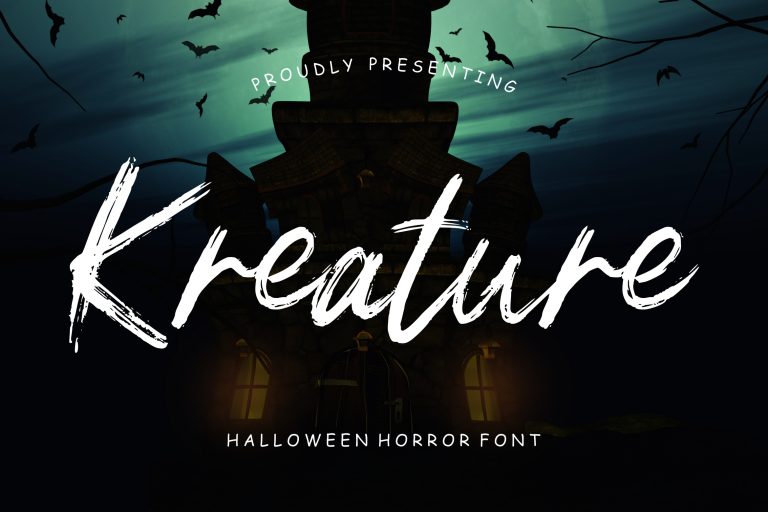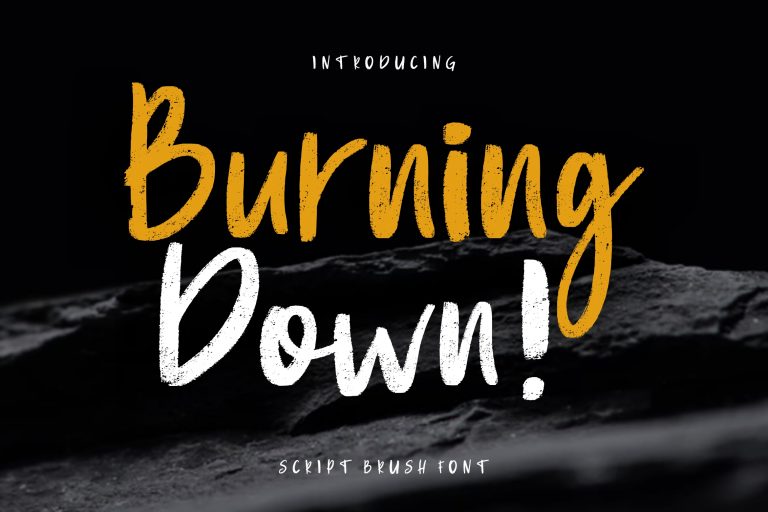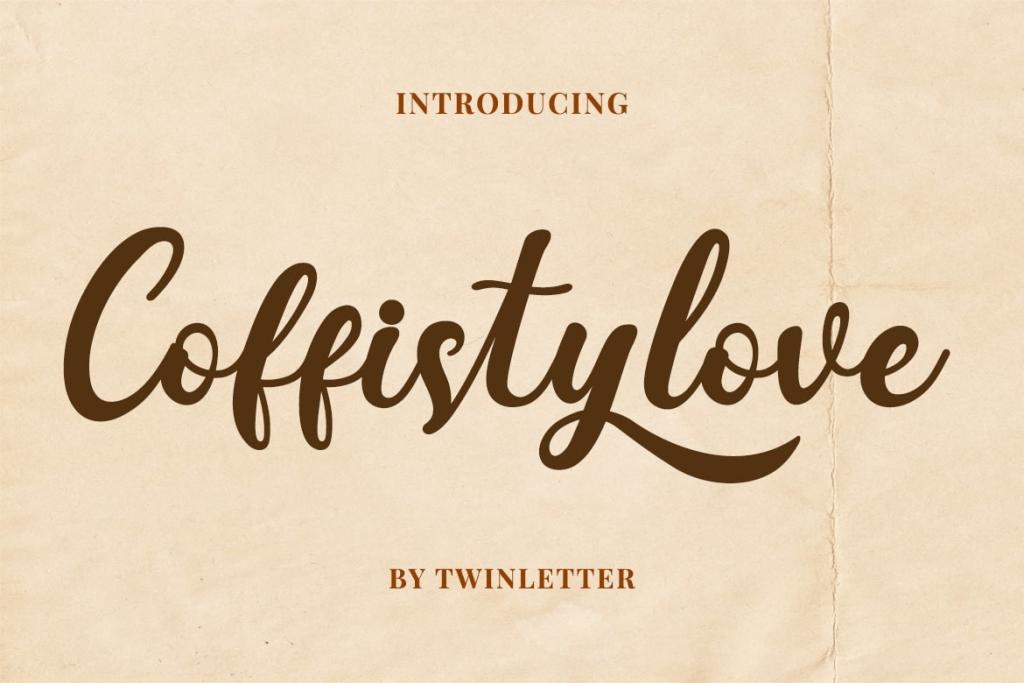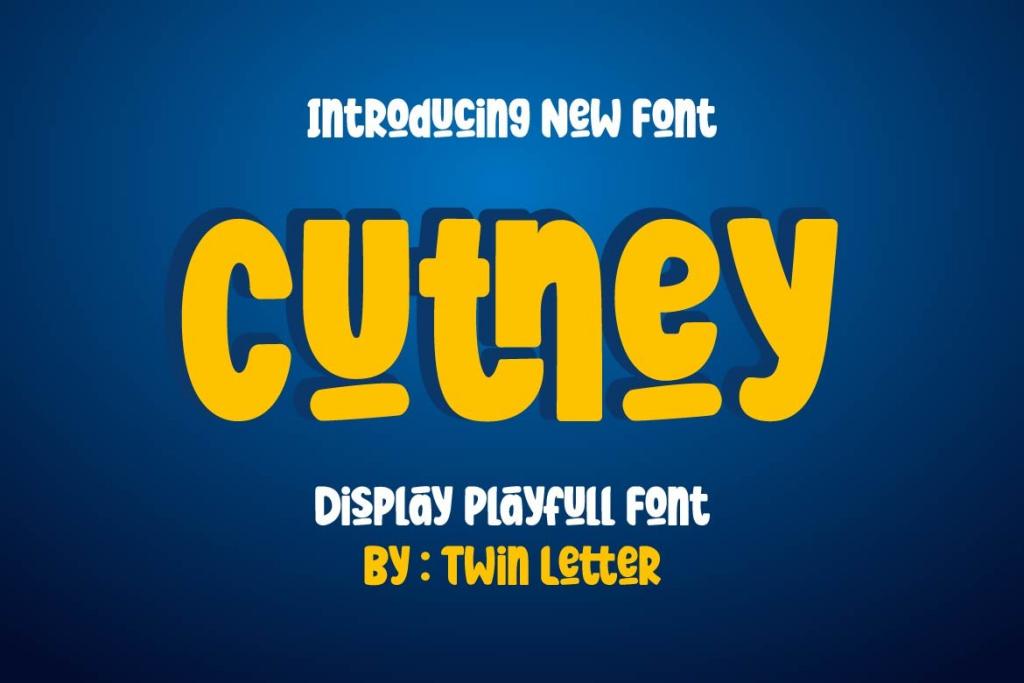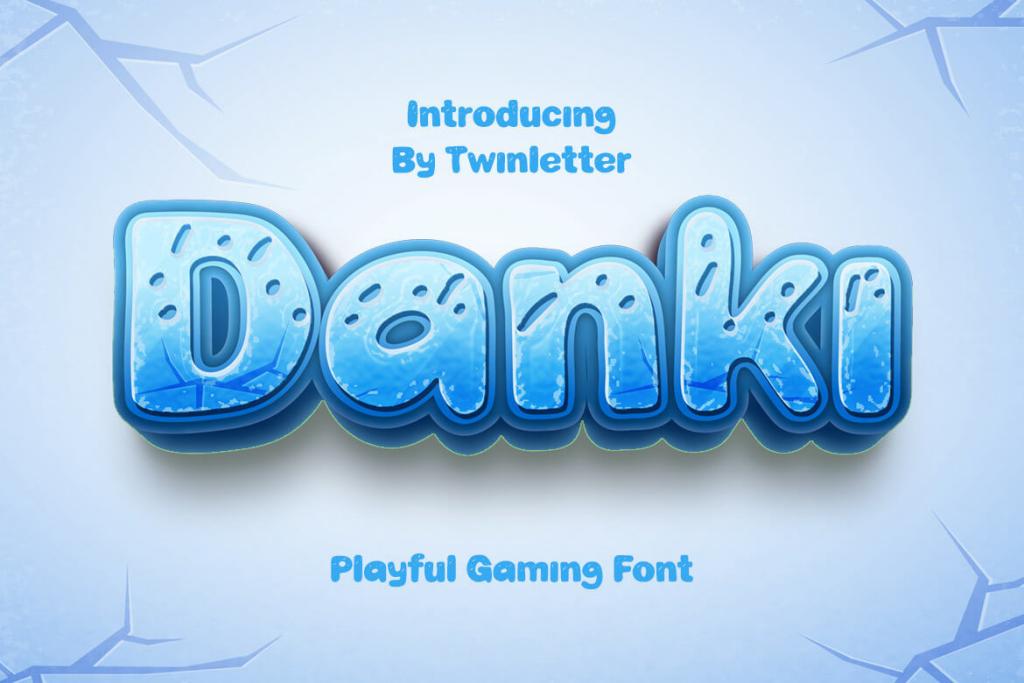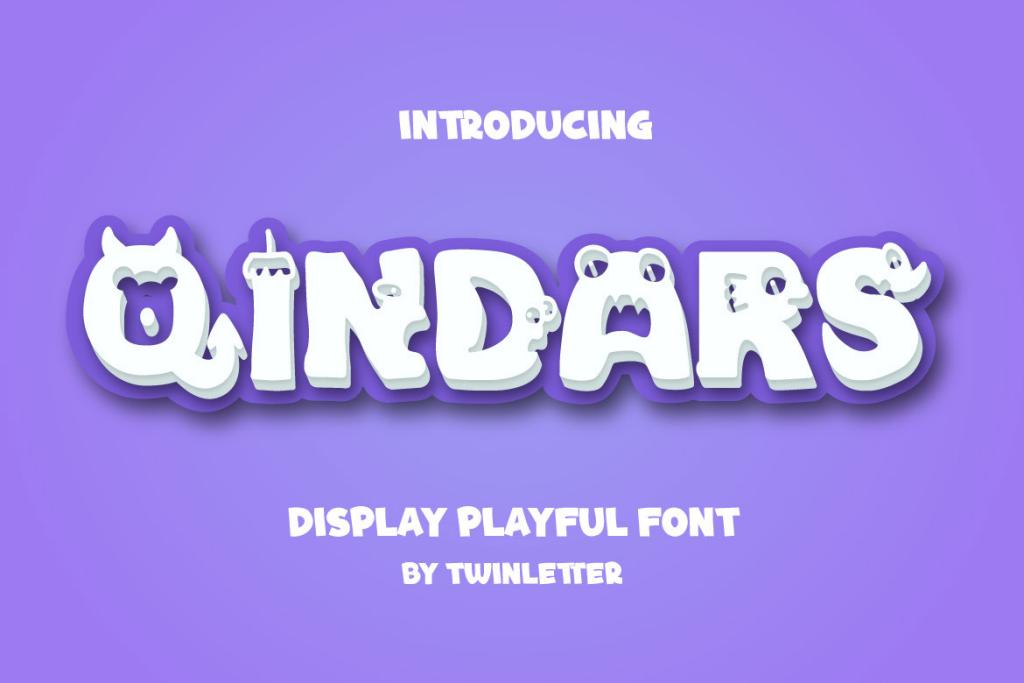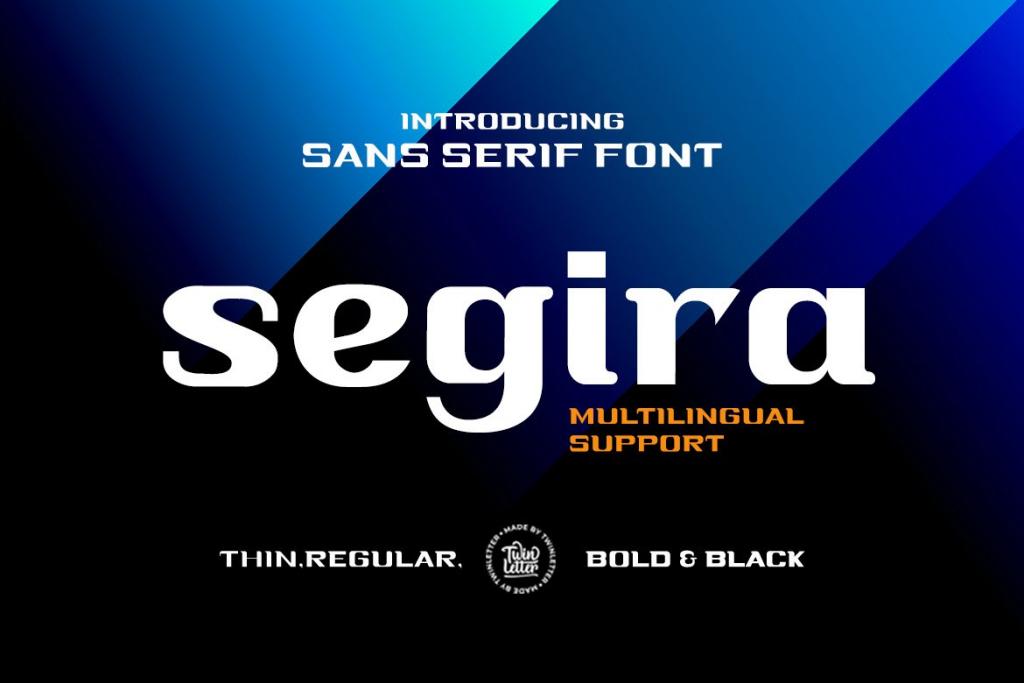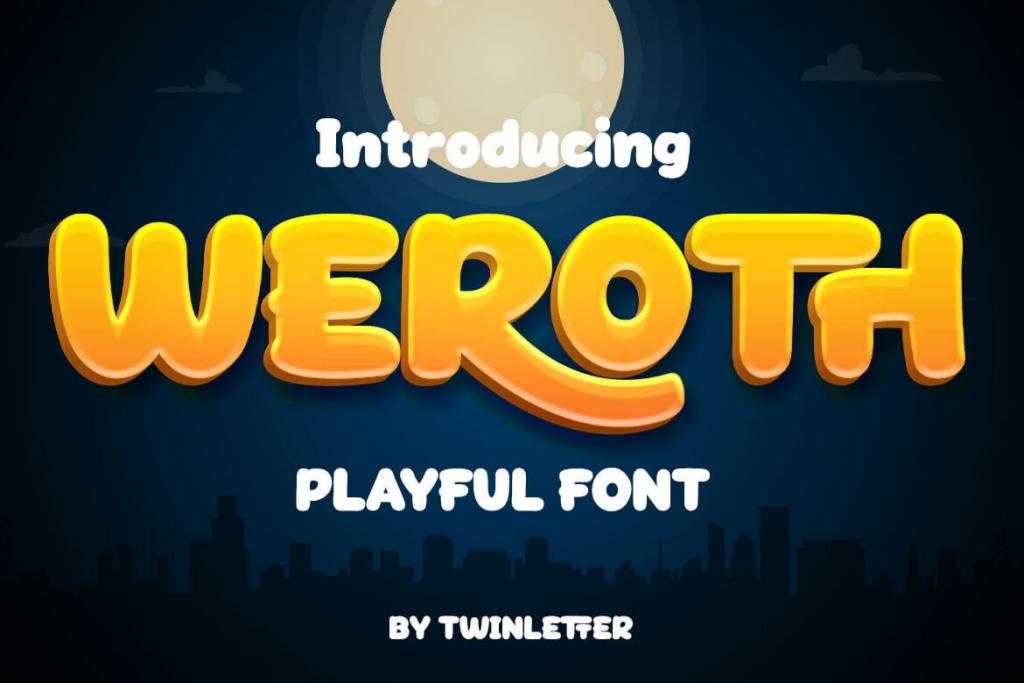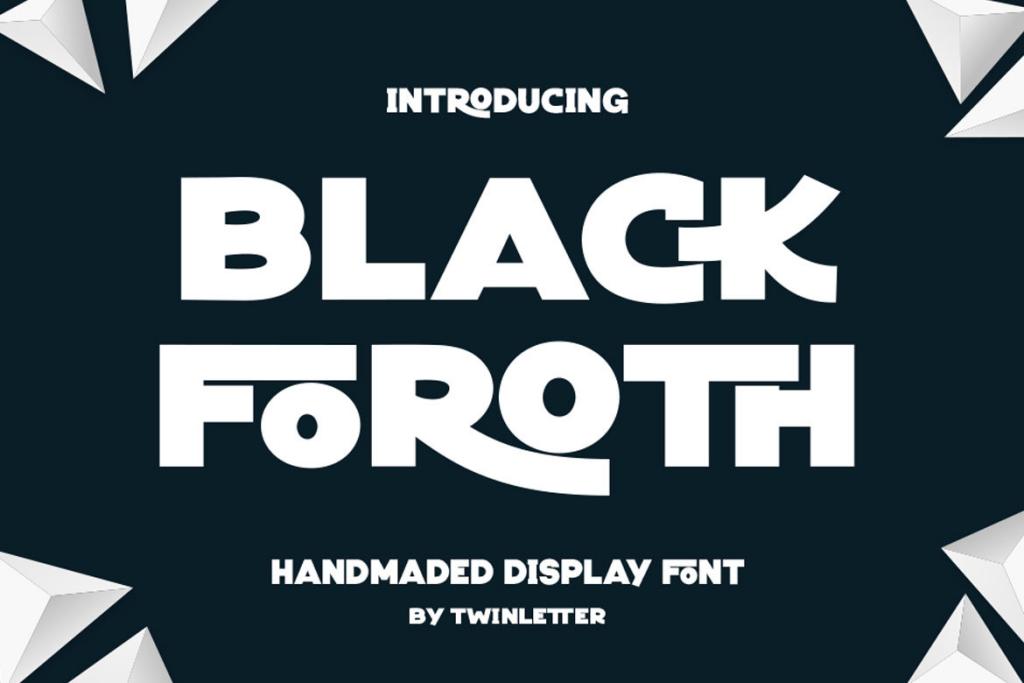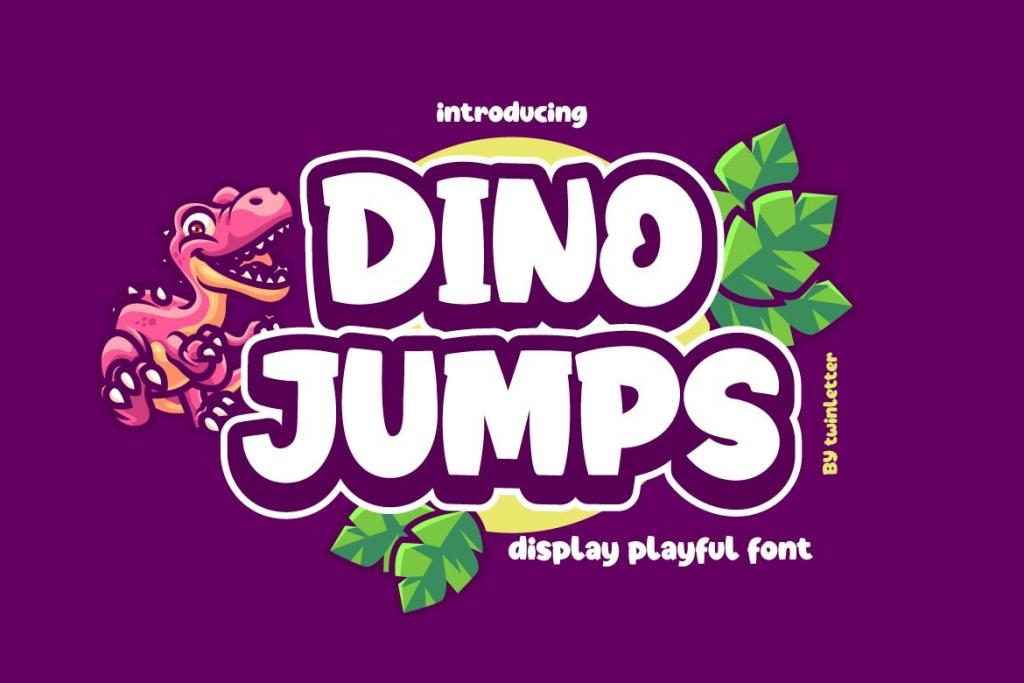
25 Fanciest YouTube Fonts To Highlight Your Channel
There are countless YouTube channels that anyone can access these days. It depends on what one needs and wants to see. Getting more viewers on yours is a normal challenge on this platform. There are many ways to do that without the risk of getting your channel suspended or, even worse, banned.
YouTube is practically a digital battlefield in terms of gaining engagement and monetization. To get your channel noticed and liked, one of the things to do is to get the right YouTube fonts. The right font will highlight your channel. Not only will people stay and watch, but they might also recommend your channel to other people they know.
Without further ado, here are 25 fancy examples for your YouTube channel:
1. Brandquest
2. Essperanza
3. Danki Font
4. Sachssy
5. Coffistylove Font
6. Kreature
7. Quicksilver
8. Black Foroth Font
9. Burning Down!
10. Qindars Font
11. Bedtime Story
12. Hancoke
13. Segira Font Family
14. Brownies Fun Children Display
15. Thertole Font
16. Hello Sunny
17. Roshfox
18. Weroth Font
19. Ethernal
20. Cutney Font
21. Hollidays Fun Children
22. Mandhy
23. Dovens Personal Use Font
24. Brotherhood
25. Dino Jumps
Brandsquest
If your YouTube channel is a black-and-white, simple animation, you can start off with Brandquest as the font. The textured brush represents jumpy characters, which is perfect for the dynamic movements of the animated pictures. You can even access it through both PC and Mac.
One of the examples of a YouTube channel that uses Brandquest is “Simon The Cat”. The black and white animation tells a series of short, simple, and funny stories about a cat named Simon who lives in a studio apartment with his master.
Essperanza
This YouTube font may highlight your fashion and beauty brand channel. It looks almost as real as any original handwritten script made by hand. The gap between letters is also reasonable, so you do not have to worry about not having it readable enough.
With Essperanza, your YouTube channel will look feminine, sophisticated, and elegant. You can use it for your in-video titles, thumbnails, and even caption whenever you need it.
Danki Font
Want something that looks playful for your YouTube channel, whether as a title or a thumbnail? Check out Danki Font. Each letter looks bloated and a bit shaky as if they have a life of their own. Besides getting them in simple black-and-white, you can also add some patterns—like dots, for example. Turn them into colorful stuff? Why not?
There are plenty of cartoon channels on YouTube that use Danki Font as their titles. You can also use this one for your fun travel shows or culinary reviews.
Sachssy
Sexy as the name sounds, this YouTube font offers an elegant, classy handwritten text with a modern brush. If your channel talks about fashion, the latest lifestyle, and all things city girls may love, then this font is definitely for you. From pastel colors to bright ones, this font works wonders too.
Coffistylove Font
Your travel and culinary channel on YouTube will not stand out without this font. Just like the name, Coffistylove Font combines elegance, soft earth-tone shades, and, yes, coffee-related themes. Whether as your channel title or thumbnails, this font works well.
Kreature
Are you into horror movies or everything goth-related? If your YouTube channel talks about Halloween stuff, horror movie reviews, or goth-rock in general, try Kreature as your YouTube font. With a dark background and swashes of the caption, your channel has the creepy factor highlighted.
Quicksilver
The first impression you will get when you look at this font is its boldness. It also looks as if the letters are always ready for a spin. Just like its name represents speed, you can use this font if your YouTube channel is related to automotive or high-intensity sports. For example, car racing.
Black Foroth Font
Stocky and simple, Black Foroth Font easily stands out as a YouTube font. If your channel talks about science fiction, science in general, or even conspiracy theories, then go for it with this. You can also use this font if your channel talks about online gaming a lot.
Burning Down!
Do not feel intimidated by the name of the font. Although it sounds hot, it does not give you an aflame vibe. The letters are very much readable, with a considerably large size and a reasonable gap in between. Want to talk about the latest topics or the hottest trends on your YouTube channel? Just “burn it down” with this font.
Qindars Font
This font is stocky and cute. The winning part of this YouTube font is how you can use it for almost many things. Qindars Font is quite versatile because you can either use it for your cartoon channel on YouTube or gaming reviews. You can also never go wrong if you prefer using it for your sports channel or movie reviews.